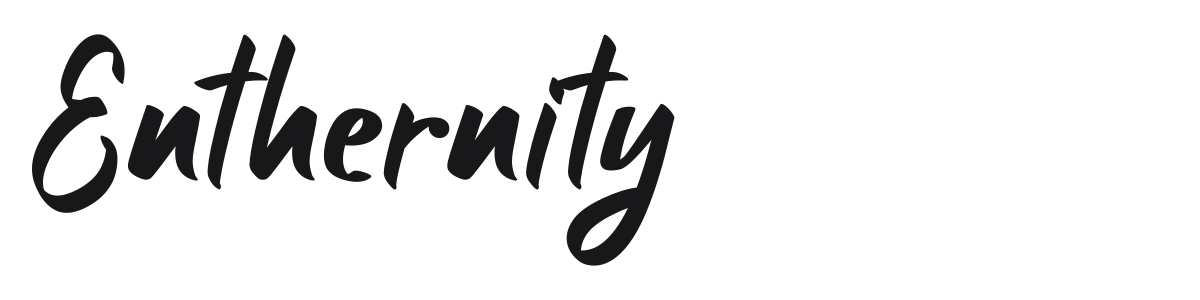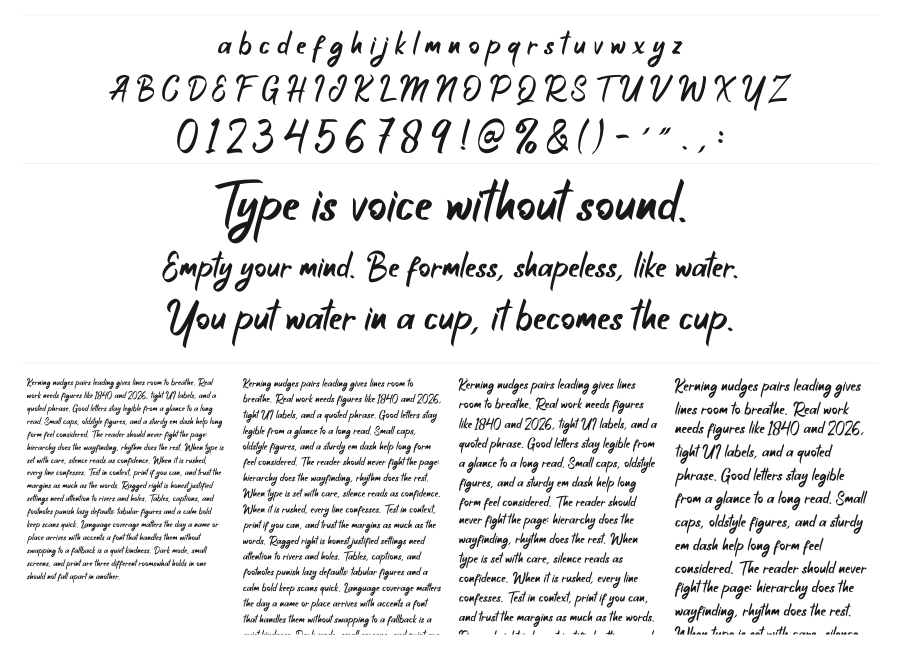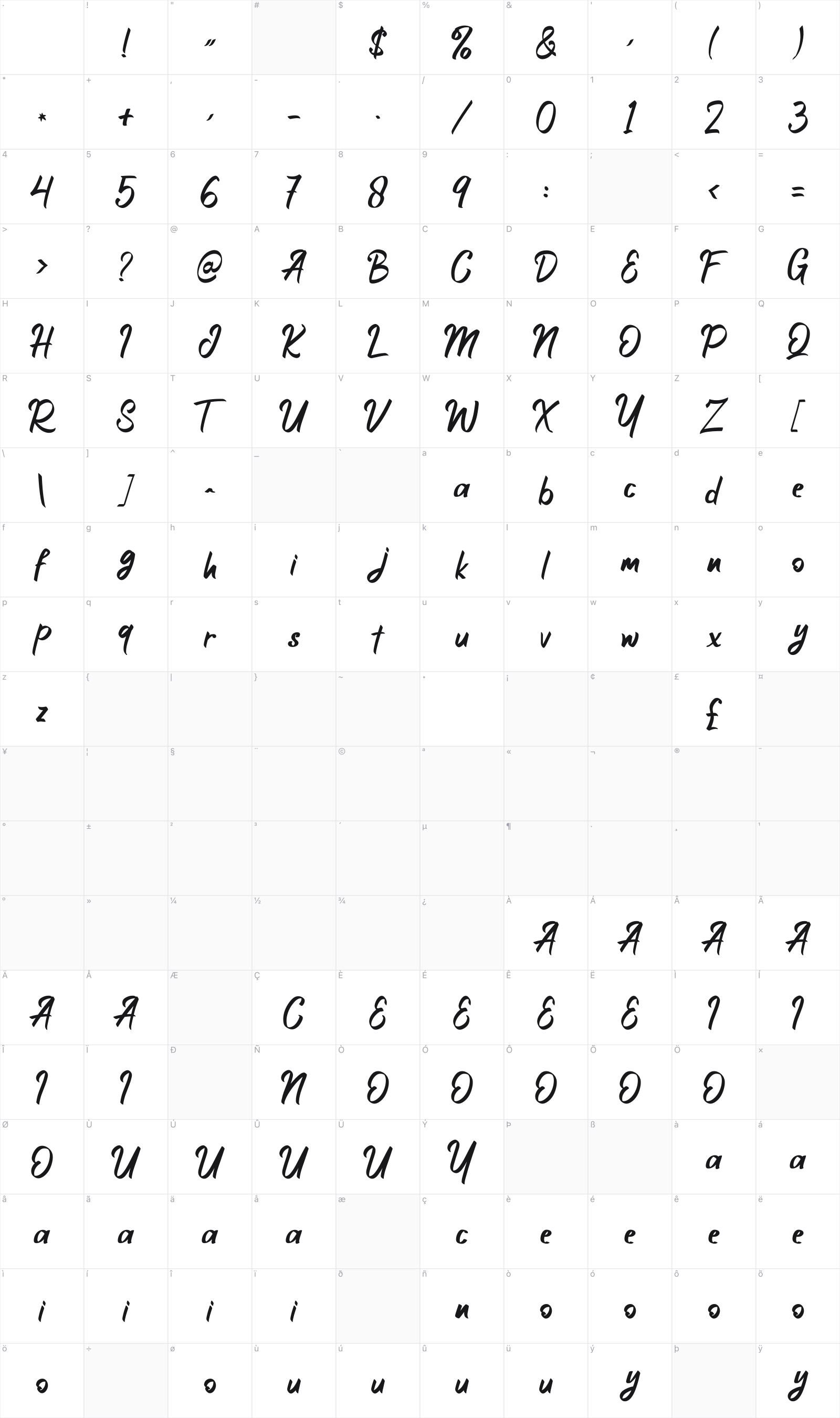
Enthernity
Enthernity is a bold casual brush script from RantauType with the loose, confident energy of real hand-lettering. Thick downstrokes and thin upstrokes create natural ink variation, while the flowing connections and baseline bounce keep it feeling genuine rather than mechanical. It brings an authentic handmade warmth to logos, packaging, and editorial headlines.